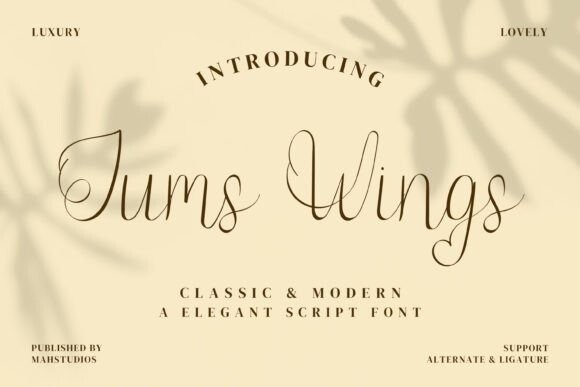
Jump Wings Font
Jump Wings is a beautiful handwritten font with a modern twist. With its elegant lines and sophisticated style, this font is perfect for adding a touch of class to any project. Ideal for wedding invitations, social media graphics, and branding, Keep in mind that the font is PUA encoded, meaning that you can access all delightful glyphs and swashes effortlessly.